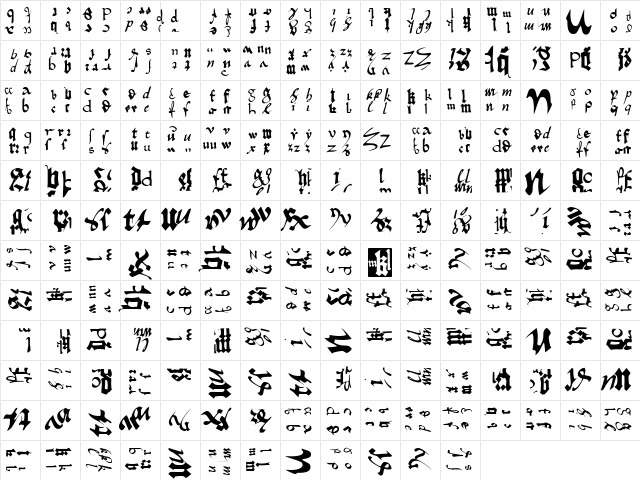
OldTypographicSymphony Regular
Design Context for OldTypographicSymphony Typeface
OldTypographicSymphony is a composed and adaptable typeface that performs quietly and consistently across a wide range of design contexts.